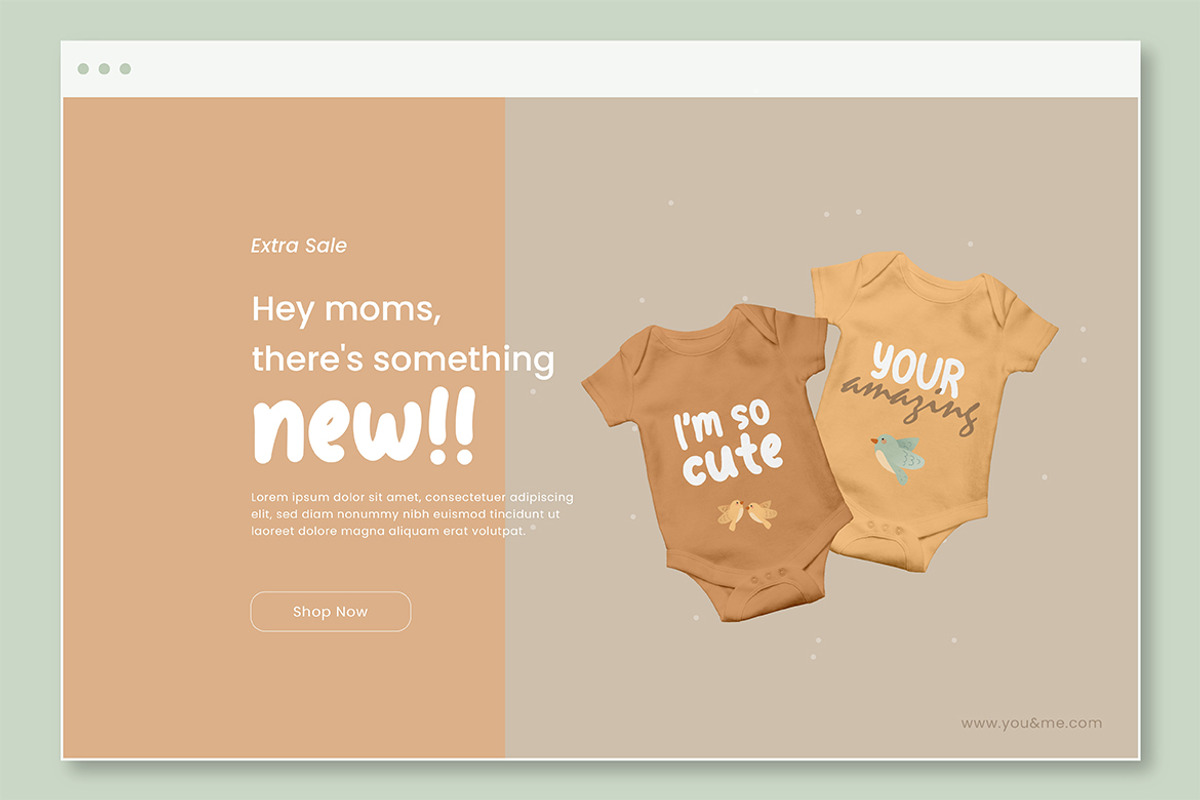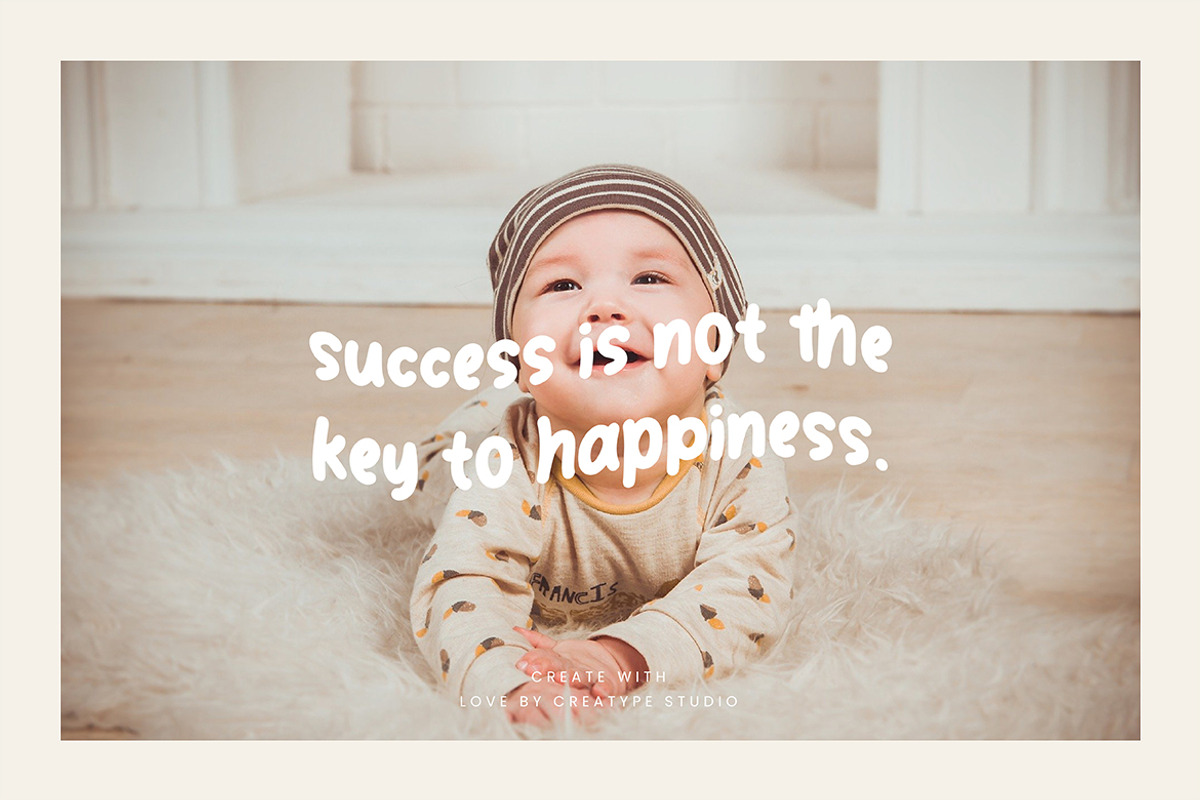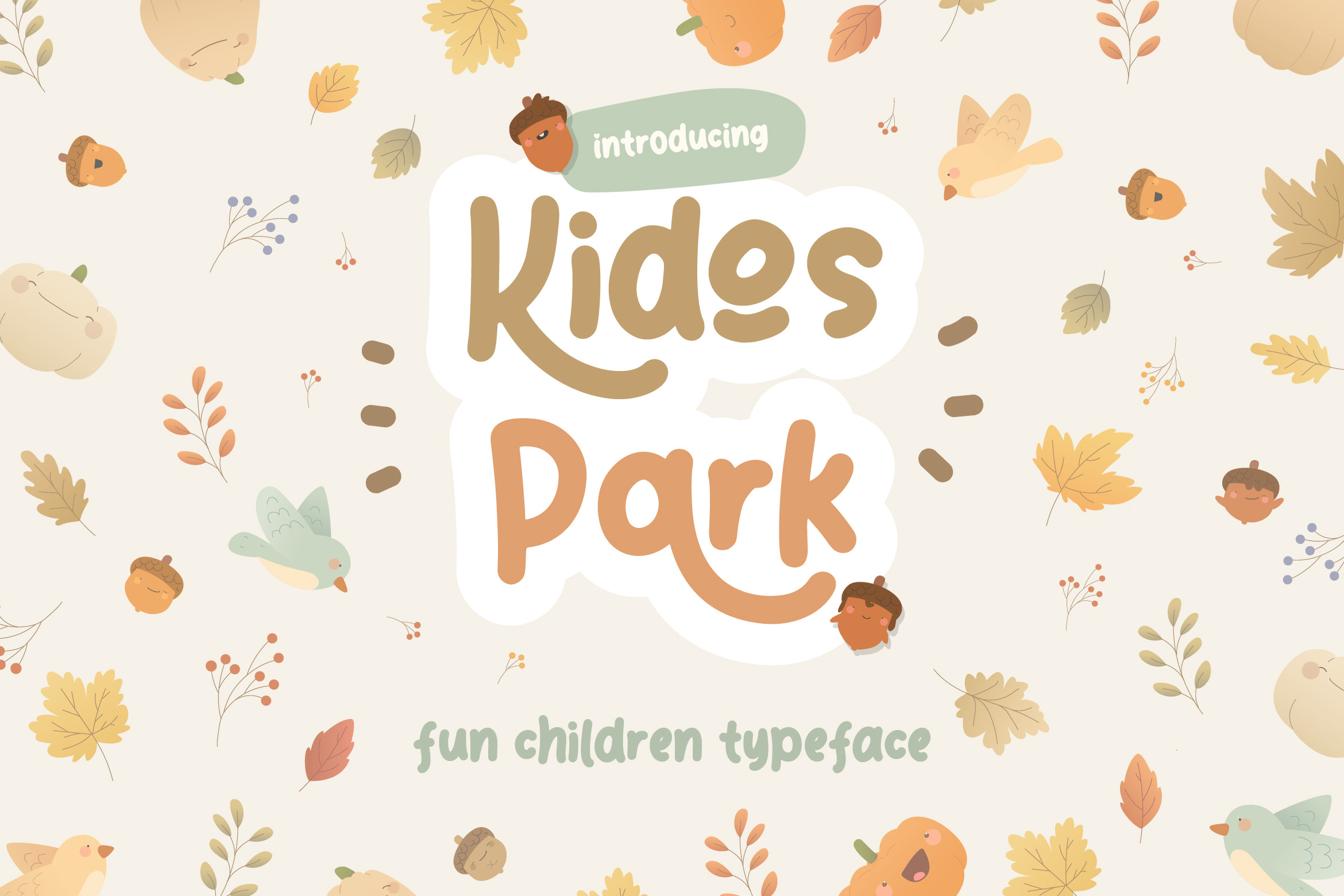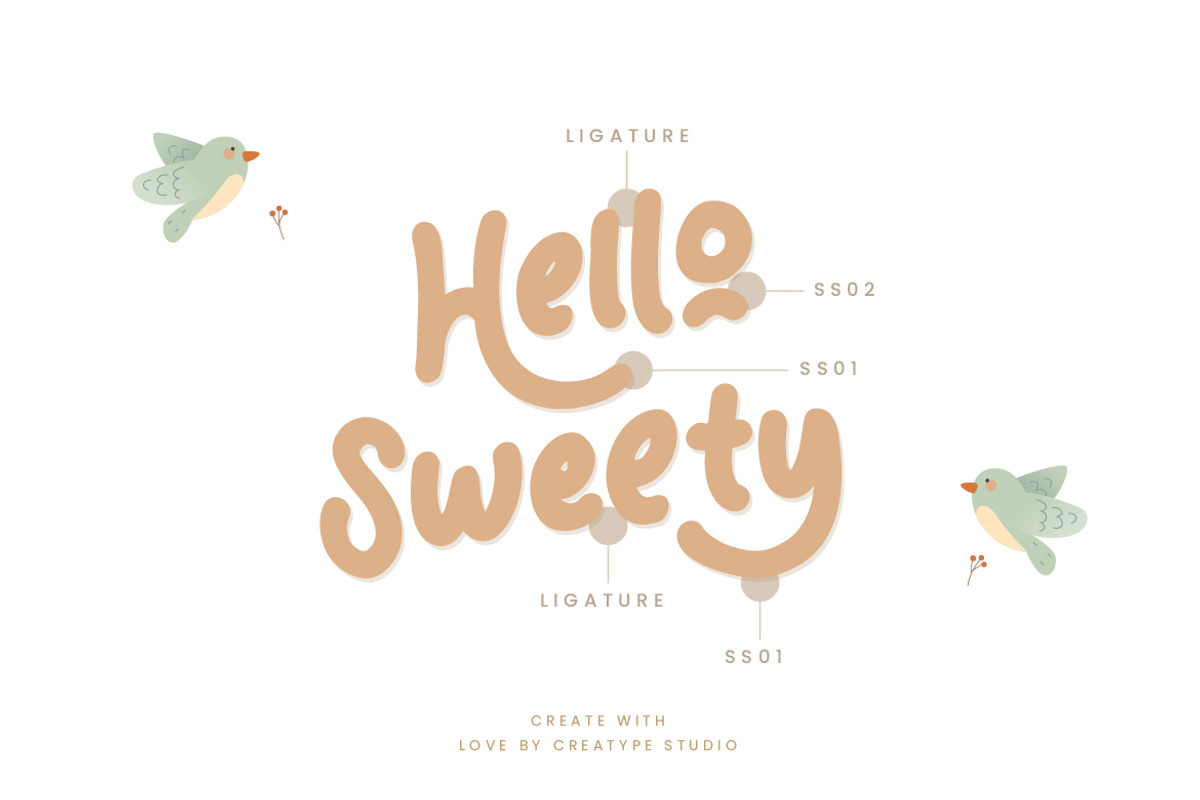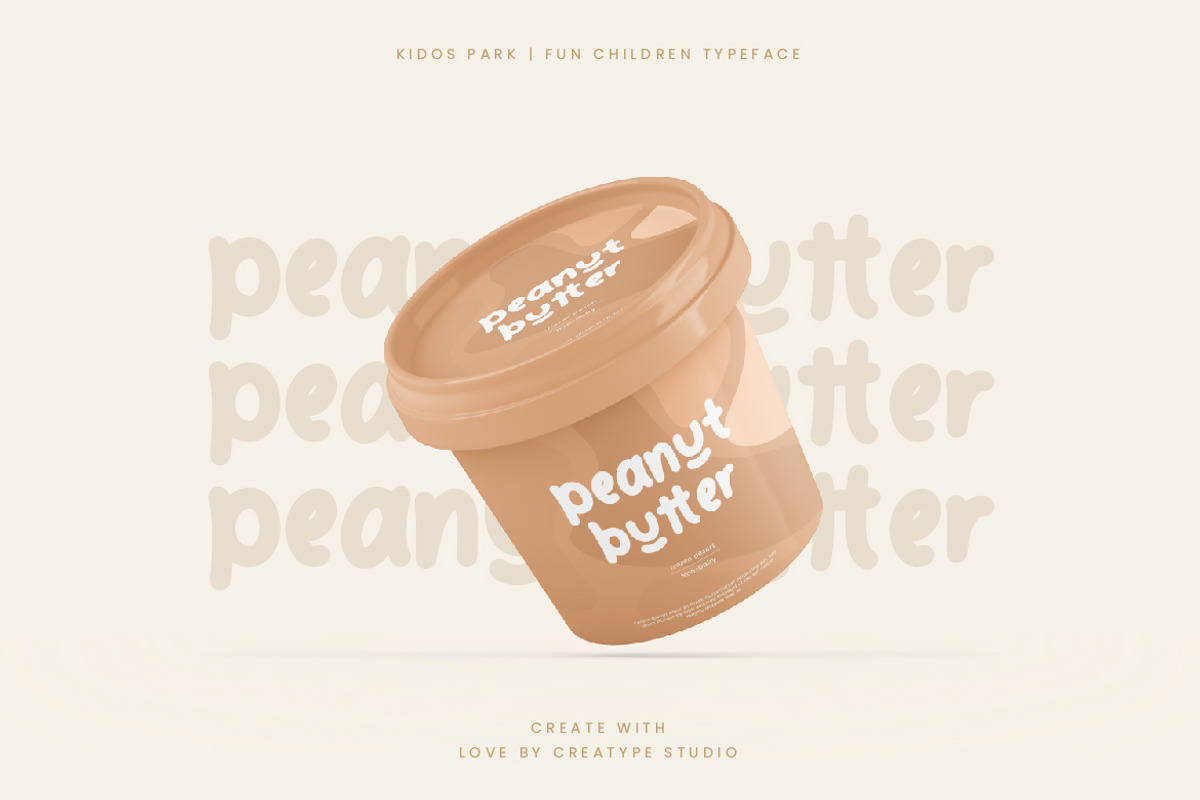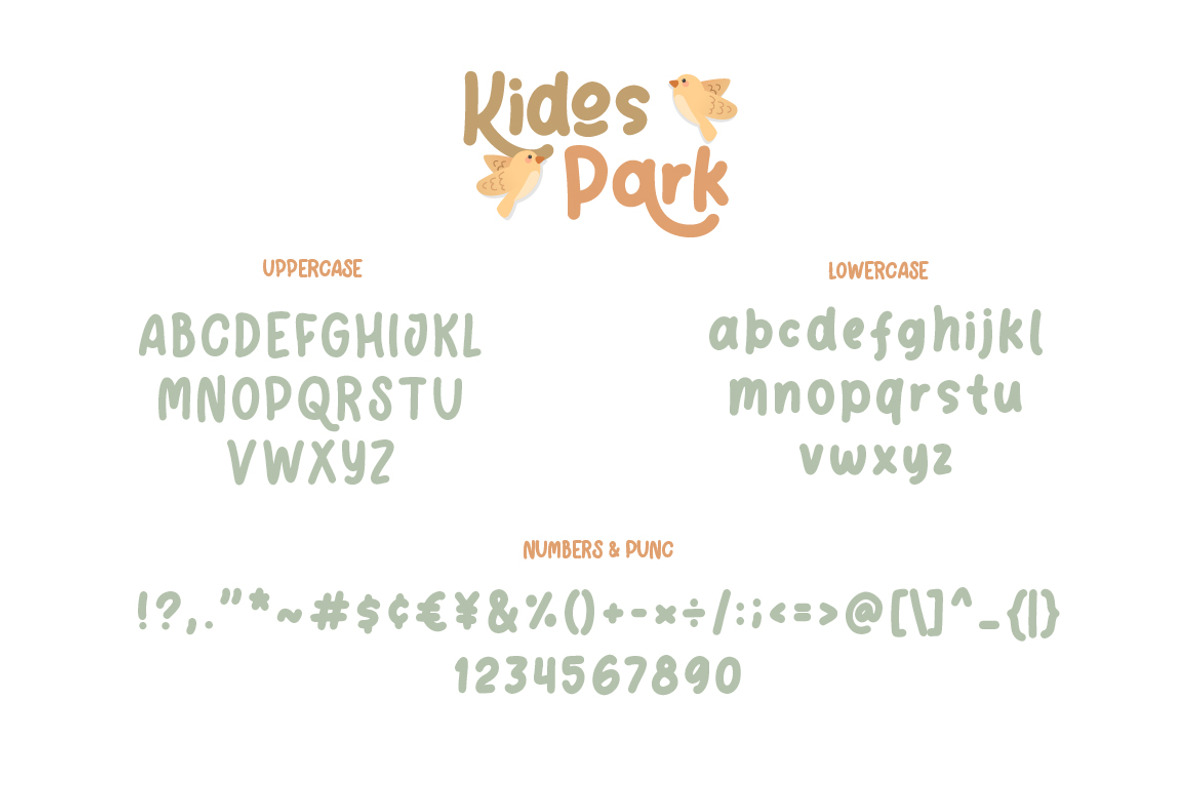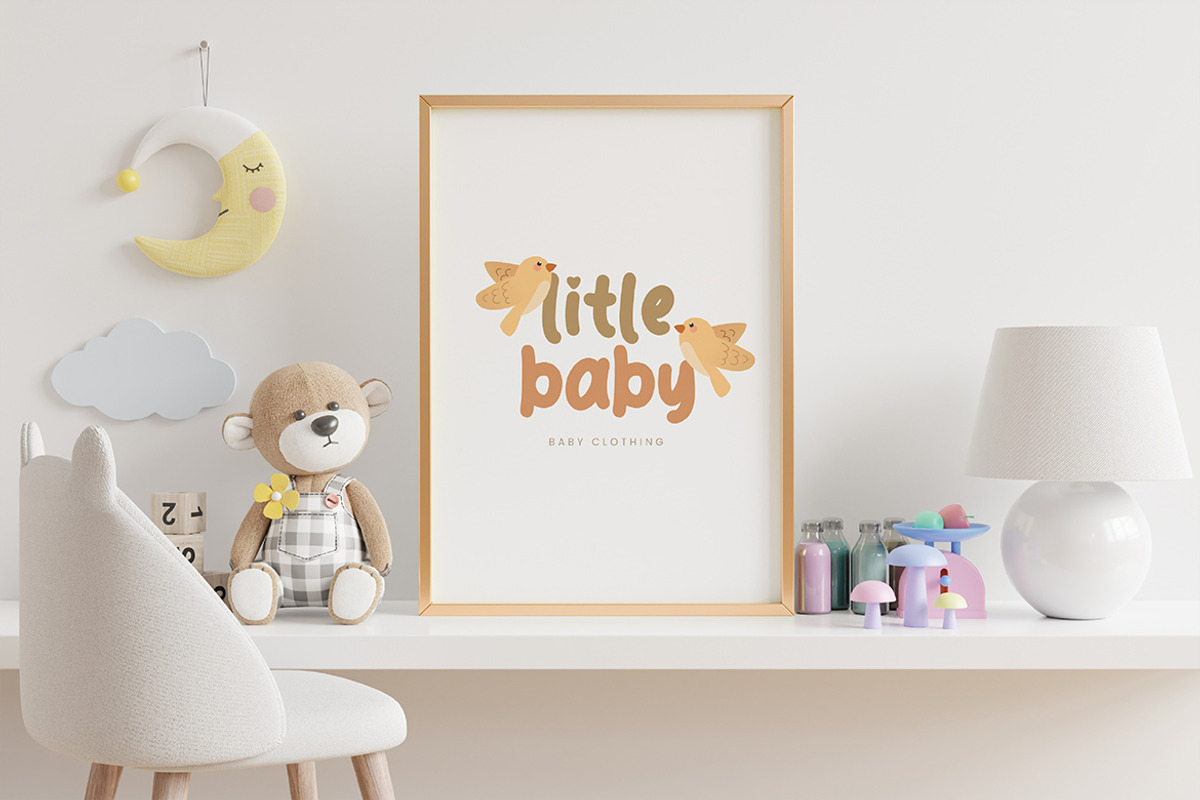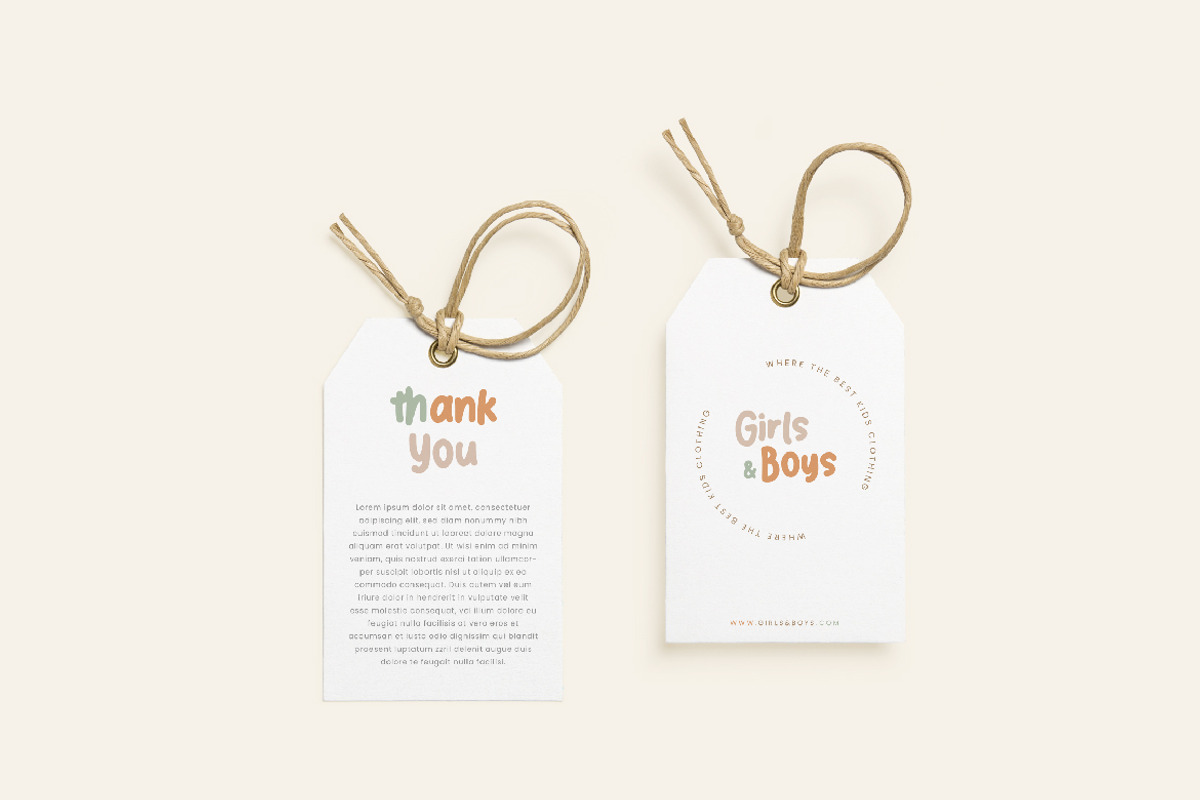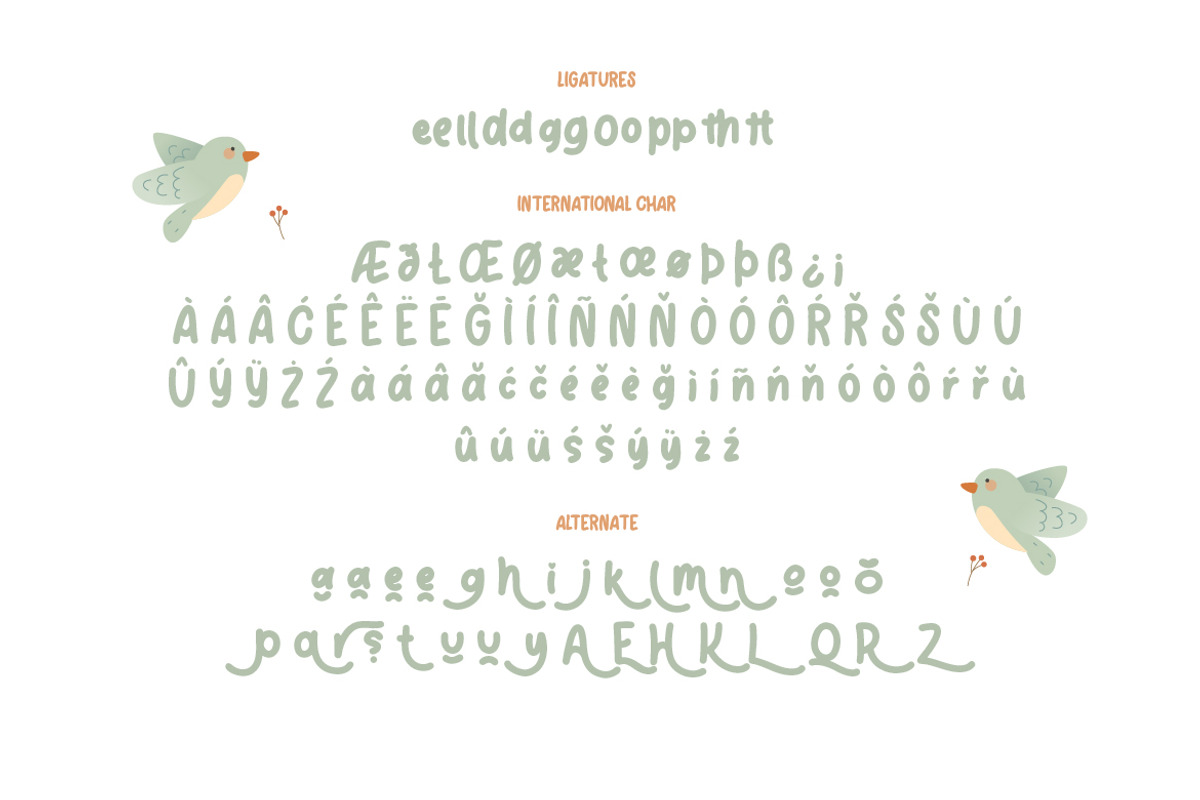
Kidos Park Fun Children Typeface
Kidos Park is hand-drawn typeface, giving off a playful and adorable impression, made with fun, joyful and perfect for kindergarten, children's books and occasion.
Kidos Park is perfect for branding projects, logo, wedding designs, social media posts, advertisements, product packaging, product designs, label, photography, watermark, invitation, stationery and any projects that need handwriting taste.
- Ligature & Alternate